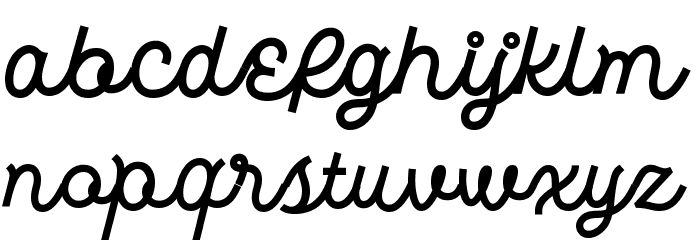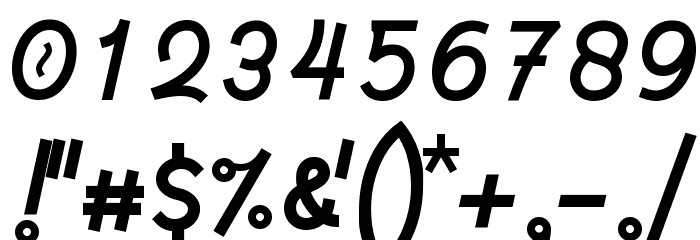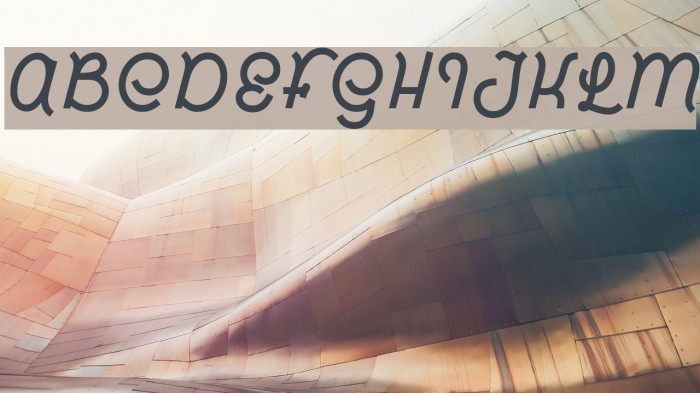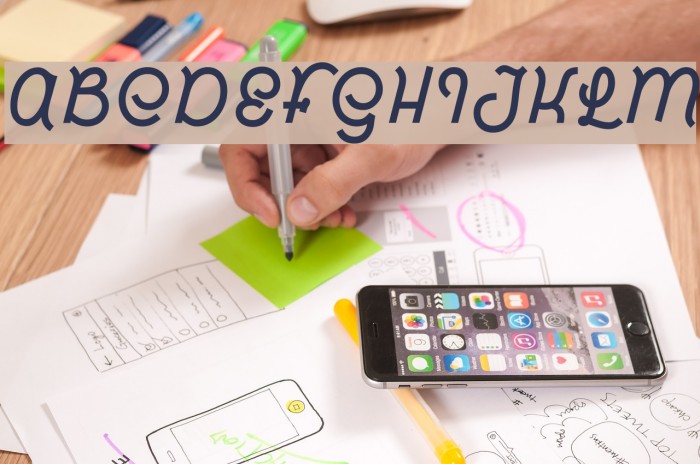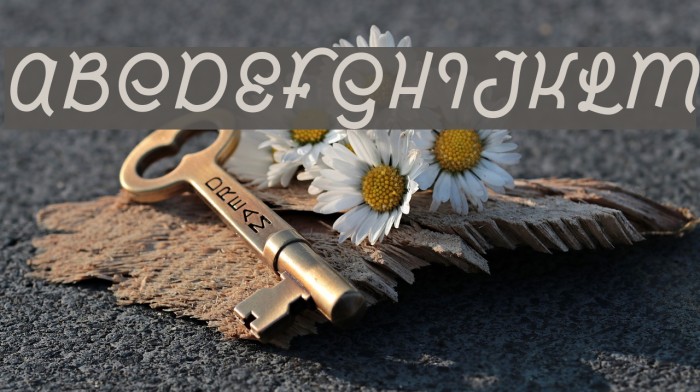
Hardino Font
This font features a playful and dynamic script style, characterized by its smooth, flowing curves and slightly slanted orientation. The uppercase letters exhibit a unique blend of traditional script elements with modern flair, while the lowercase letters maintain a consistent rhythm and fluidity. The numerals are bold and clear, ensuring readability. Special characters are thoughtfully designed to complement the overall aesthetic, making it versatile for various design needs. The font's cohesive style makes it suitable for projects that require a personal touch or a sense of elegance.
A playful, dynamic script font with smooth curves and a modern flair.
- Proposed Projects: Ideal for greeting cards, invitations, branding, and social media graphics.
- Use Case: Logos, Headlines, Invitations